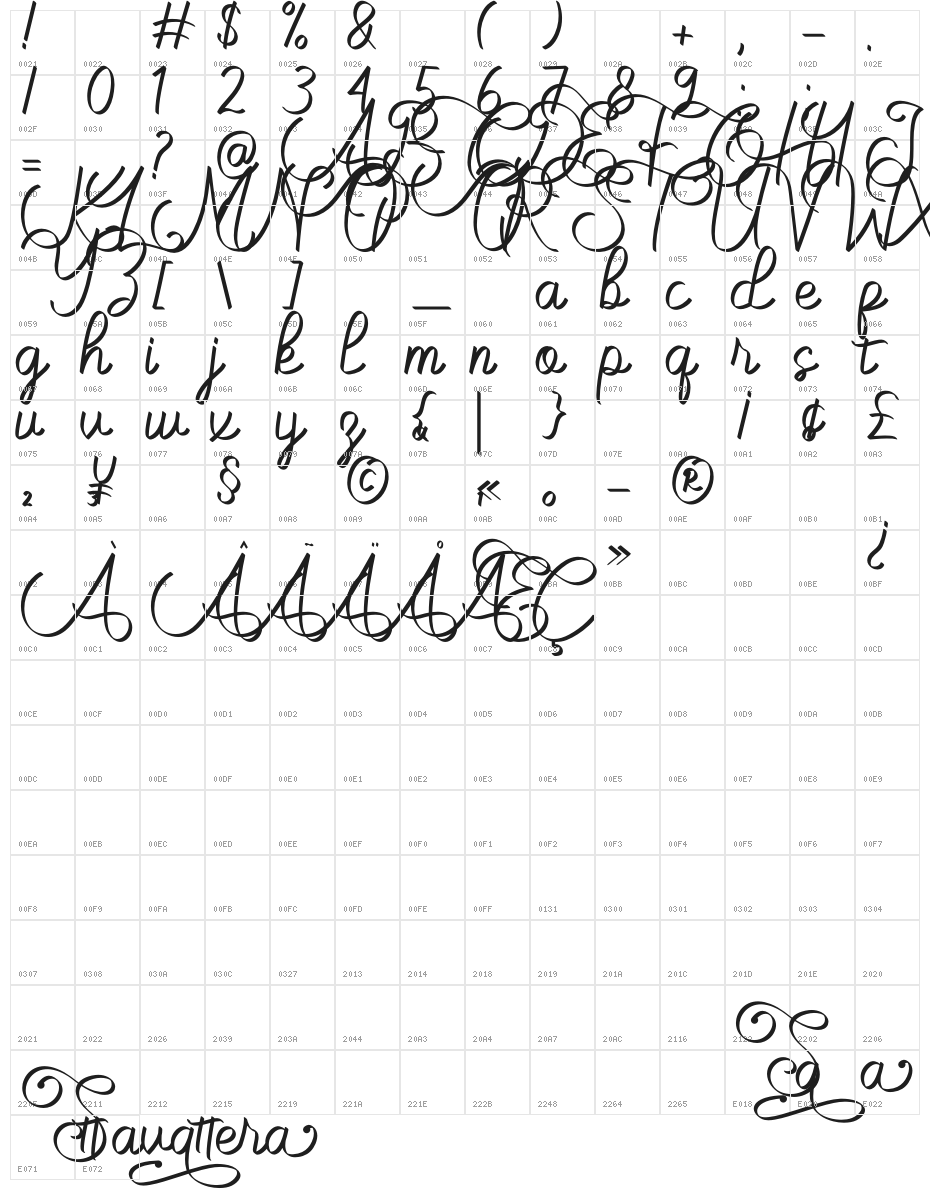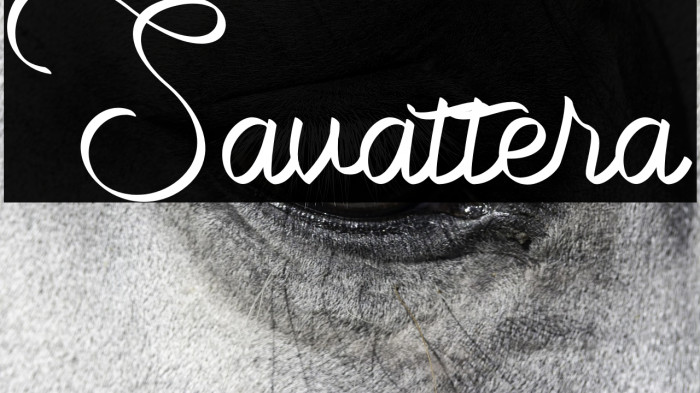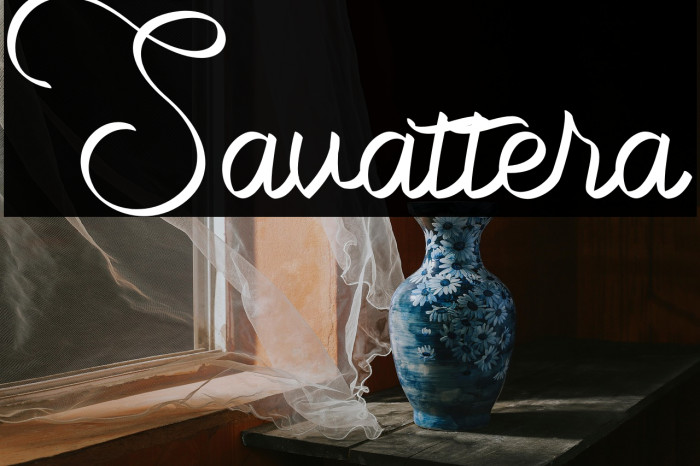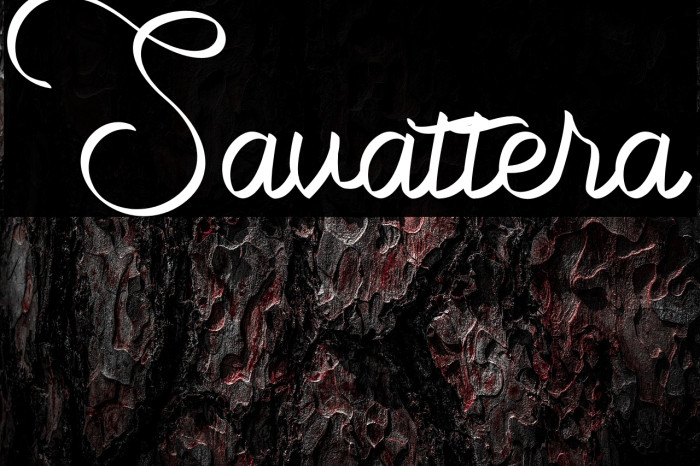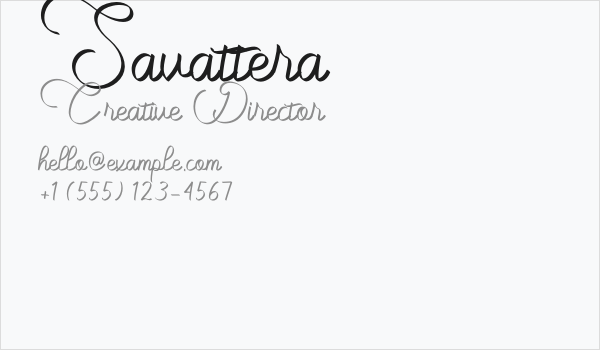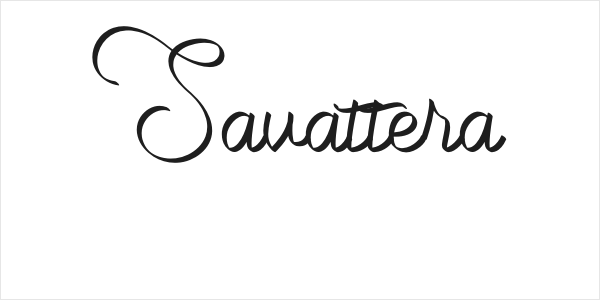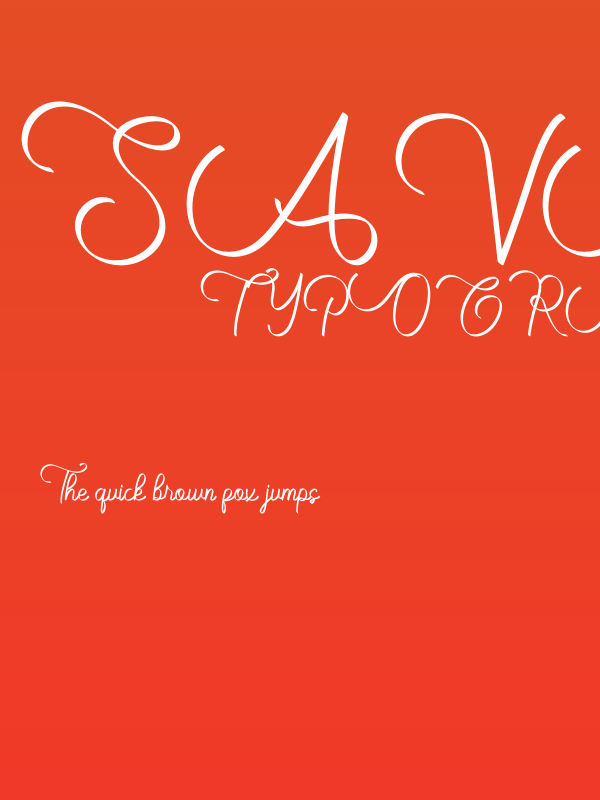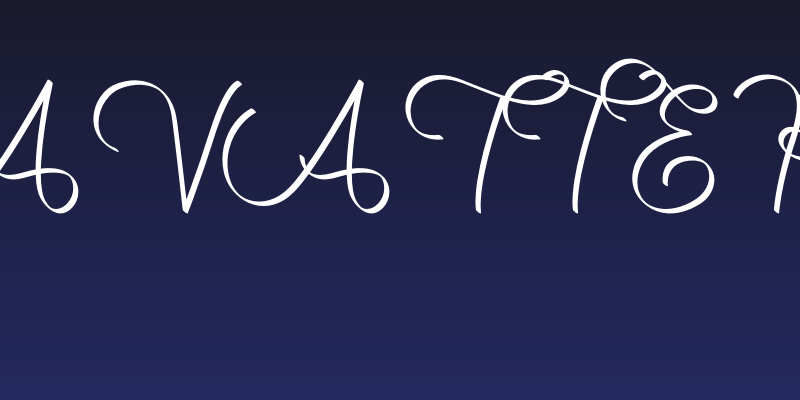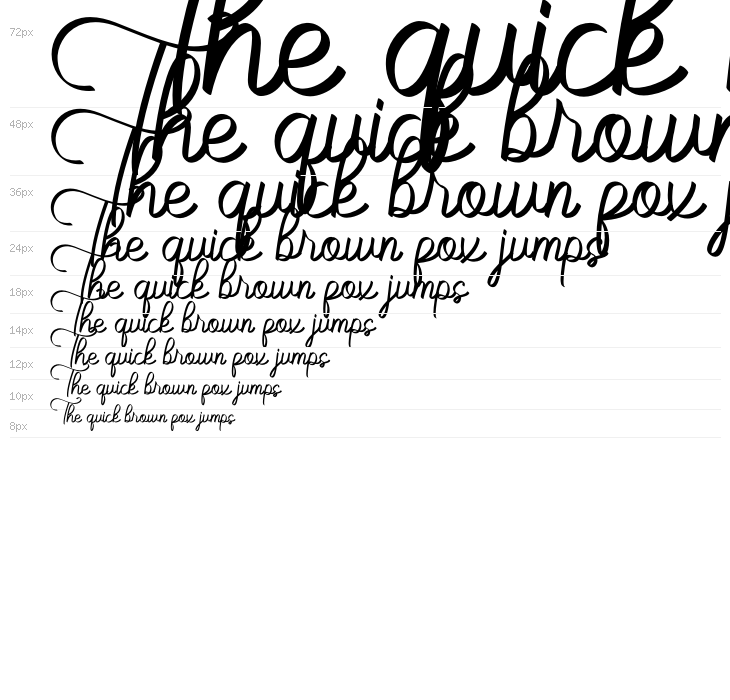
Savattera Font
Savattera Description
This font features a dynamic and flowing script style that exudes elegance and sophistication. The uppercase letters are delicately crafted with smooth, continuous strokes, giving them a graceful and airy appearance. The lowercase letters maintain a consistent flow, with some characters featuring unique loops and swirls that add a touch of whimsy. The numerals are clear and legible, designed with a slight slant that complements the overall script style. Special characters are thoughtfully integrated, maintaining the font's cohesive aesthetic. This font is perfect for projects that require a personal and artistic touch.
| Overall Style | Elegant |
| Use Case | Logos, Invitations, Decorative text |
| Proposed Projects | Ideal for wedding invitations, greeting cards, branding, and logo design. |